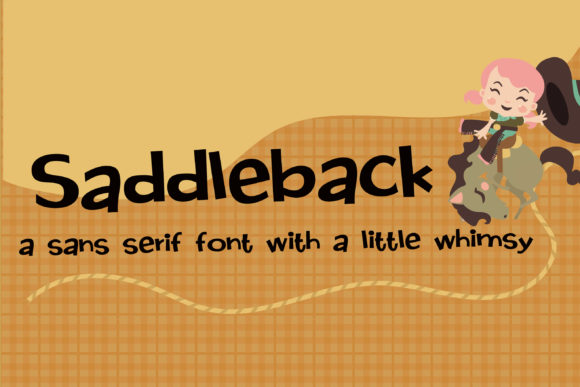
Step into the Wild West with Saddleback Font, the adventurous sans serif that'll capture your heart. Inspired by the untamed spirit of the frontier, this playful font dances off the page with its whimsical curves and charmingly rugged edges.
Howdy, typography enthusiasts! Saddle up and let Saddleback Font take you on a typographic adventure. This spirited sans serif, crafted lovingly by Illustration Ink, pays homage to the boundless landscapes and rugged spirit of the Wild West. Saddleback is a breath of fresh air, bringing an untamed charm and a touch of whimsy to your designs.
Unleash the untamed beauty of the Wild West with Saddleback Font, a captivating sans serif that will ignite your creativity. Let your designs roam free, echoing the spirit of adventure that once roamed the open range. With its playful curves and rugged edges, Saddleback will add a touch of magic to your branding, social media posts, and any project that yearns for a touch of the untamed.
At the heart of Saddleback Font lies a deep connection to the American frontier. Its western-influenced design captures the essence of wide-open spaces and rugged individualism. Saddleback isn't just a font; it's a gateway to a time when dreams were as big as the sky and the possibilities were endless. Embrace the untamed spirit of the Wild West and let Saddleback Font guide you to design masterpieces that resonate with authenticity and grit.